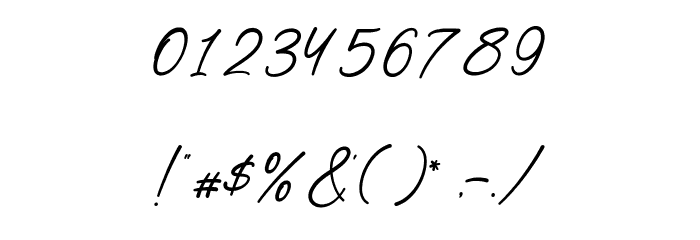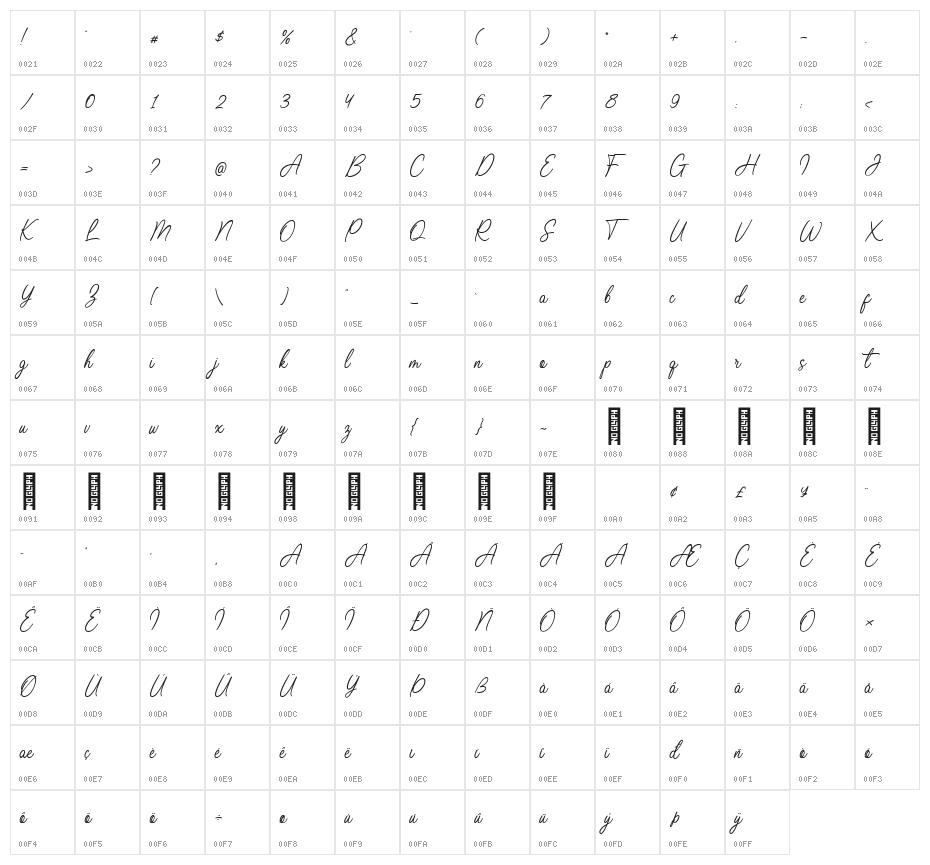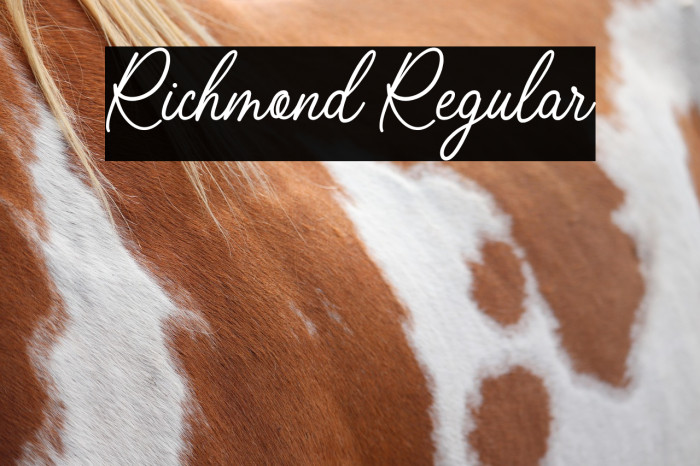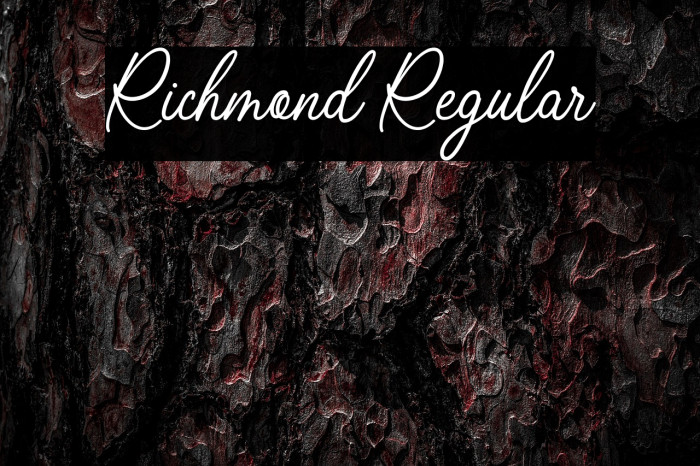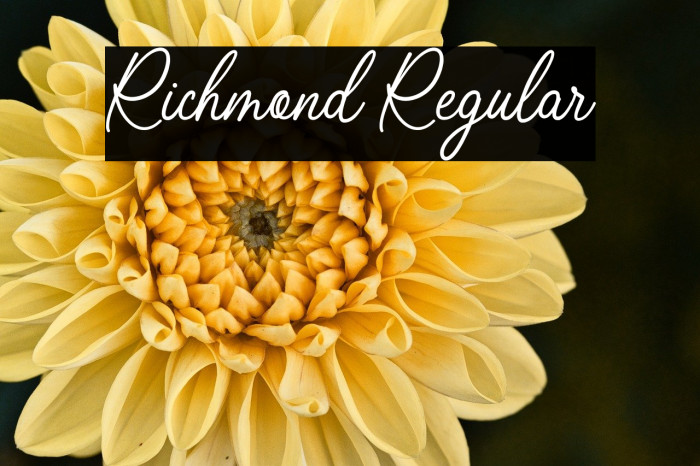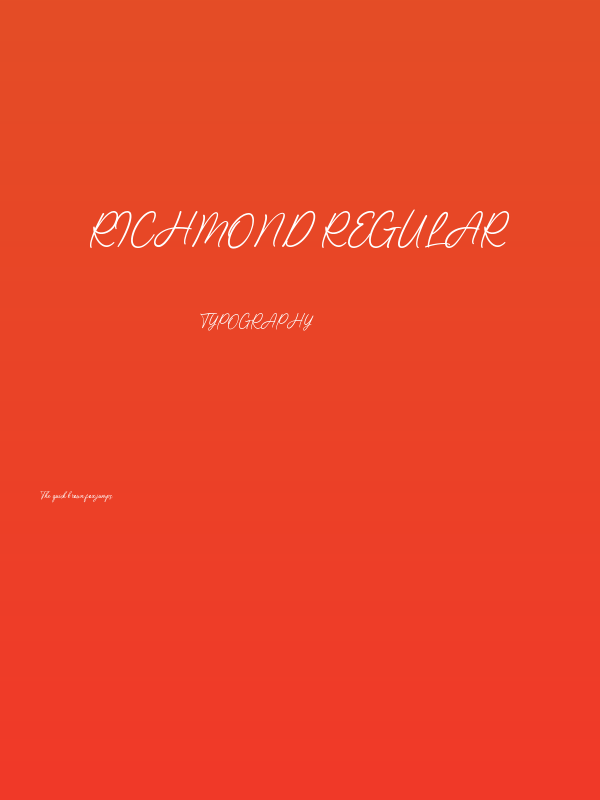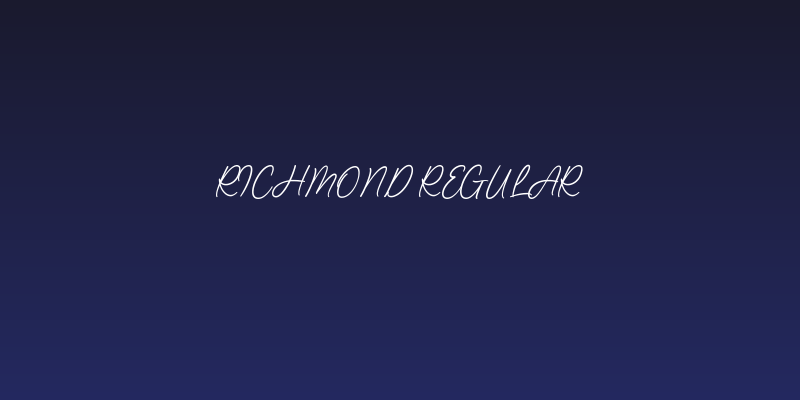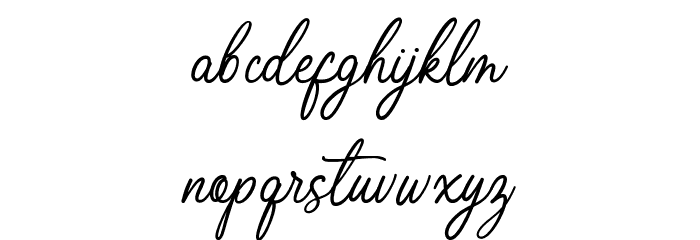
Richmond Regular Font
Richmond Regular Description
This font exudes elegance and fluidity, characterized by its cursive, handwritten style. The letters are gracefully connected, creating a seamless flow that mimics natural handwriting. The uppercase letters are slightly more embellished, with gentle curves and loops that add a touch of sophistication. The lowercase letters maintain a consistent rhythm, enhancing readability while preserving the font's artistic flair. Numbers and special characters are designed to match the overall aesthetic, ensuring a cohesive appearance across all text elements. This font is perfect for projects that require a personal, elegant touch.